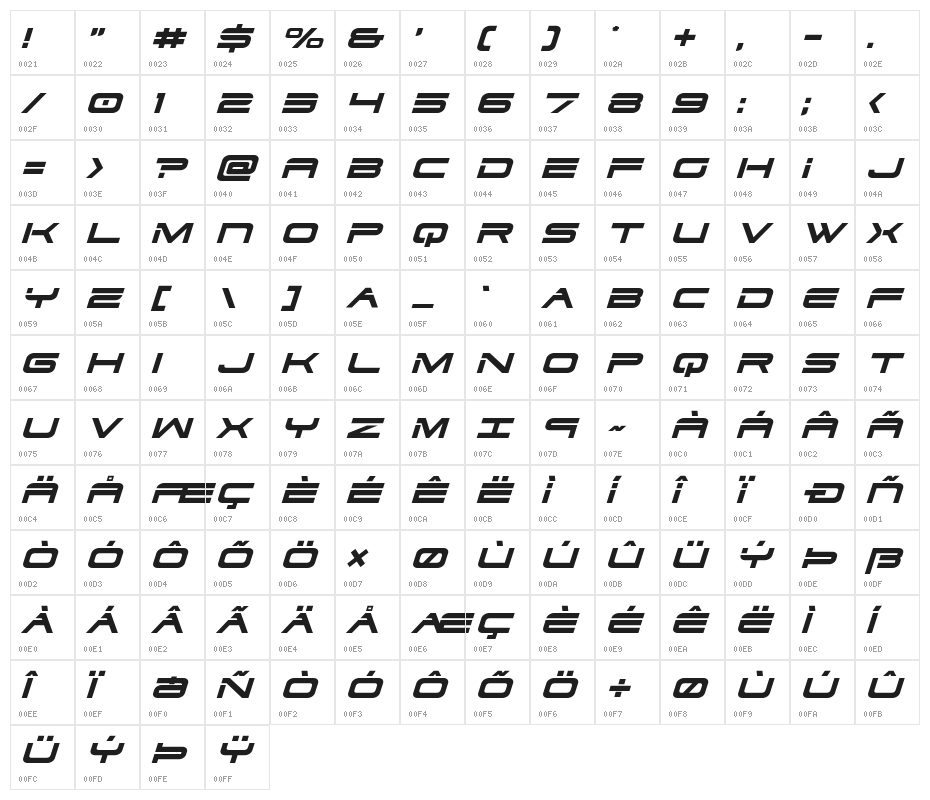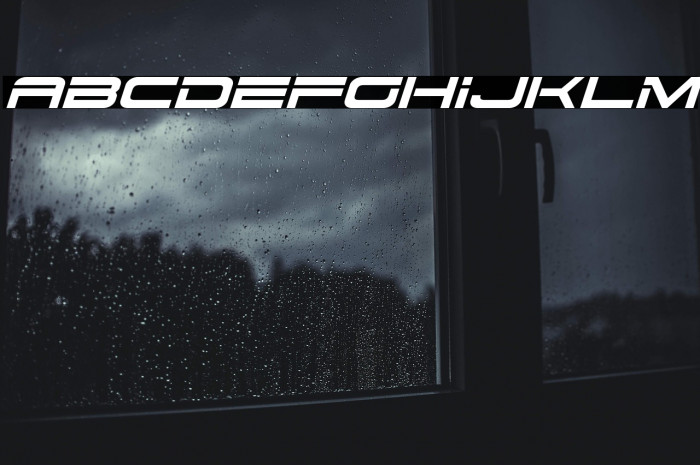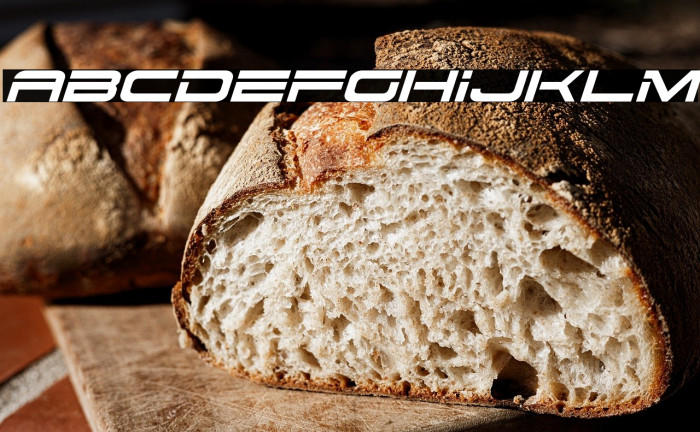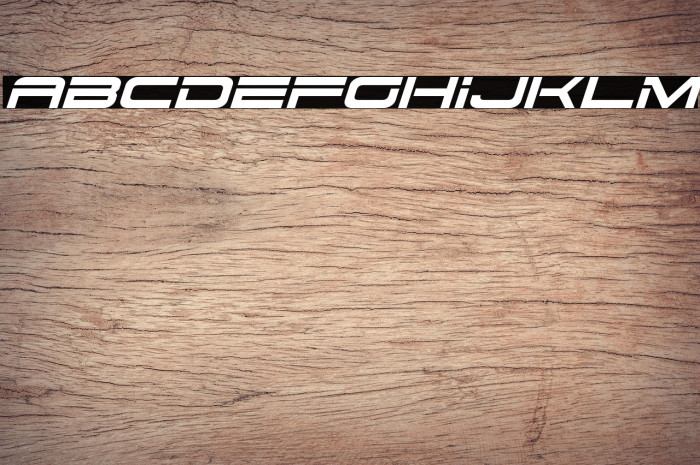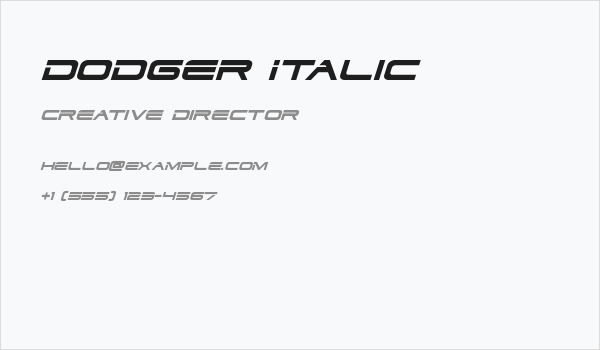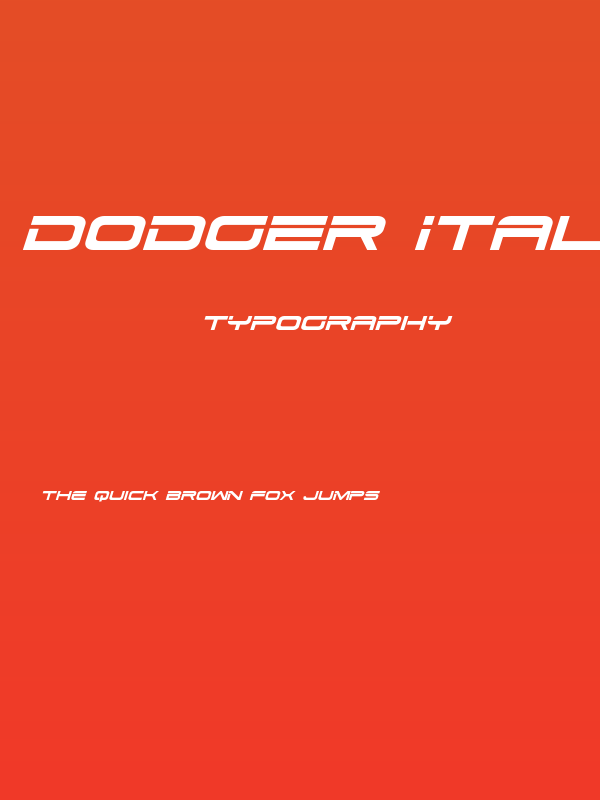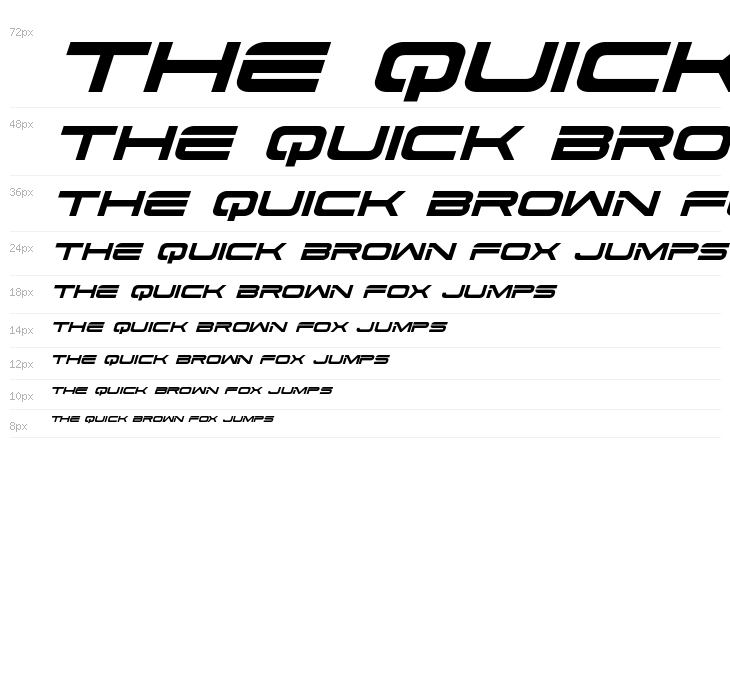
Dodger Italic Font
Dodger Italic Description
This font features a sleek, futuristic design with a distinct italic slant, giving it a dynamic and forward-moving appearance. The characters are bold and angular, with sharp edges and a consistent stroke width that conveys a sense of speed and modernity. The uppercase and lowercase letters maintain a uniform style, while the numerals and special characters complement the overall aesthetic. The font's design is ideal for projects that require a contemporary and energetic look, such as technology branding, sports team logos, or automotive advertisements.
| Use Case | Logos, Headlines |
| Proposed Projects | Ideal for technology branding, sports team logos, and automotive advertisements. |